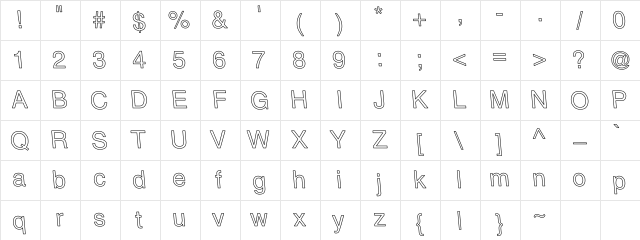
SchnellerMedium Hollow Regular
Complete SchnellerMedium Hollow Regular glyph index. Displaying only characters natively supported by SchnellerMedium Hollow Regular font.
Design Context for SchnellerMedium Hollow
SchnellerMedium Hollow is a composed and adaptable typeface that performs quietly and consistently across a wide range of design contexts.